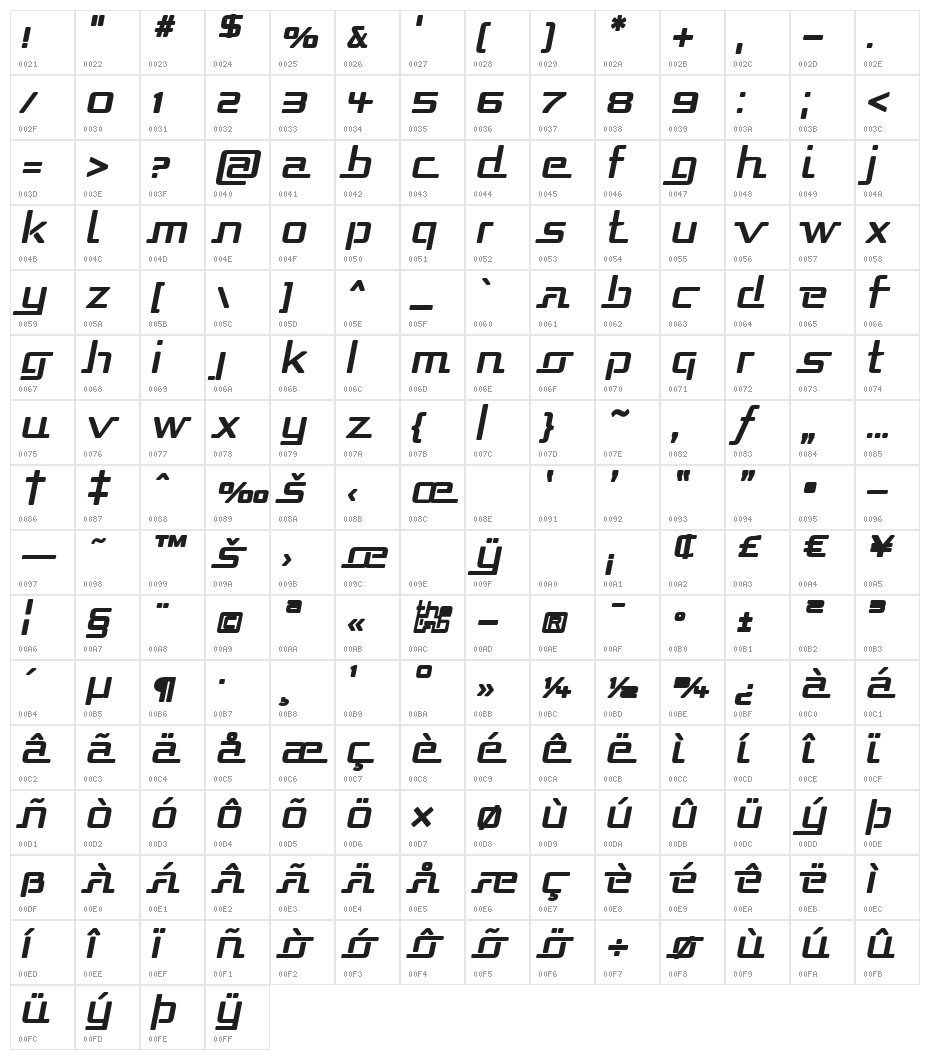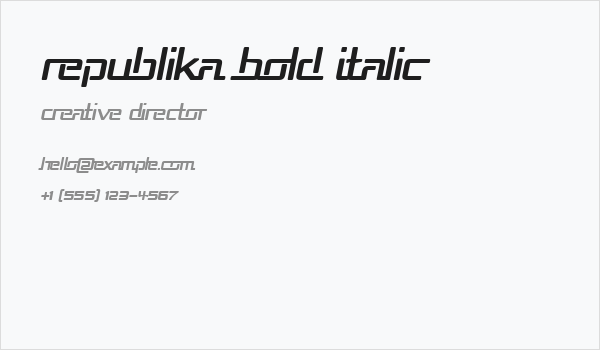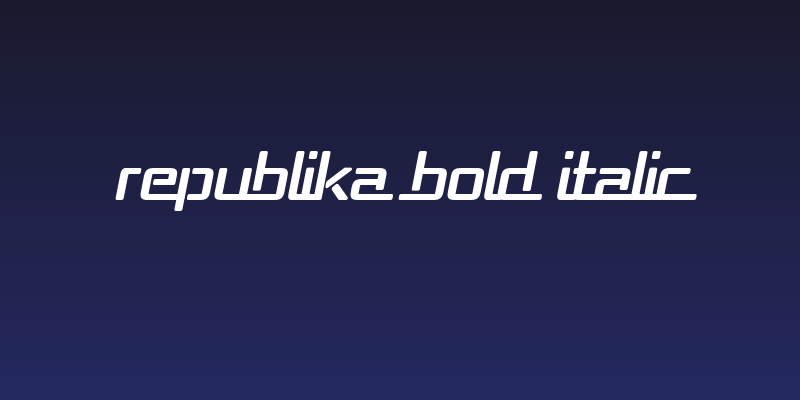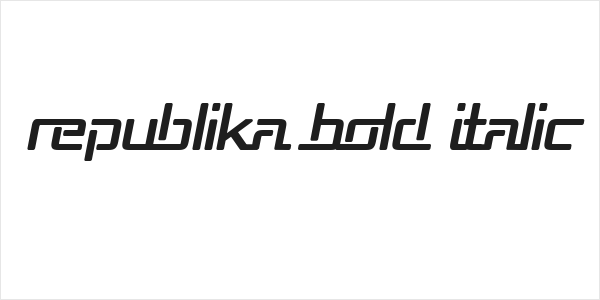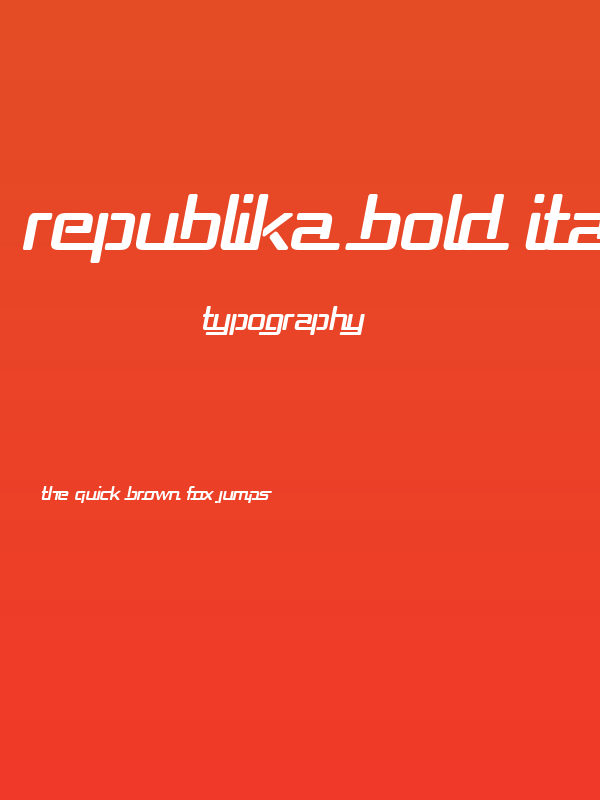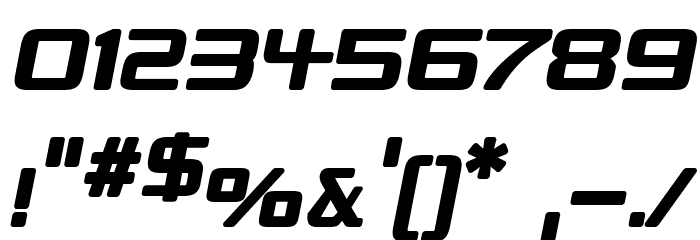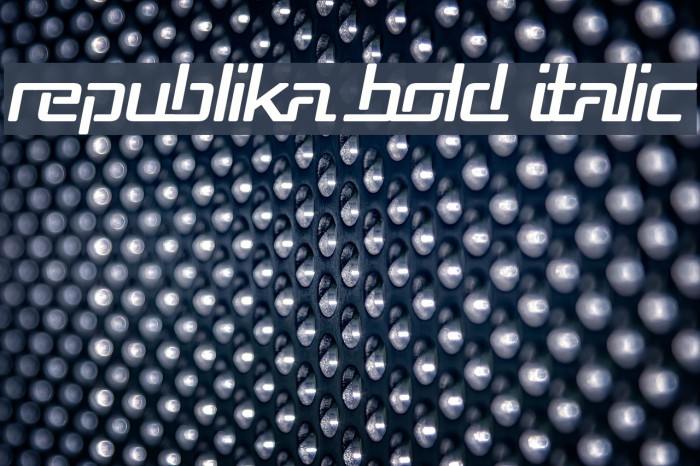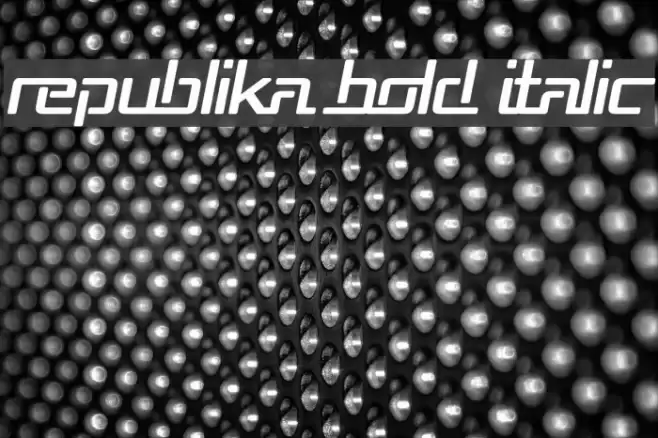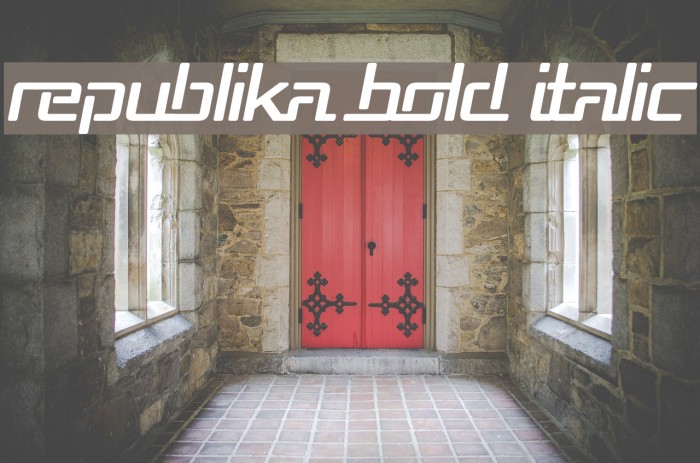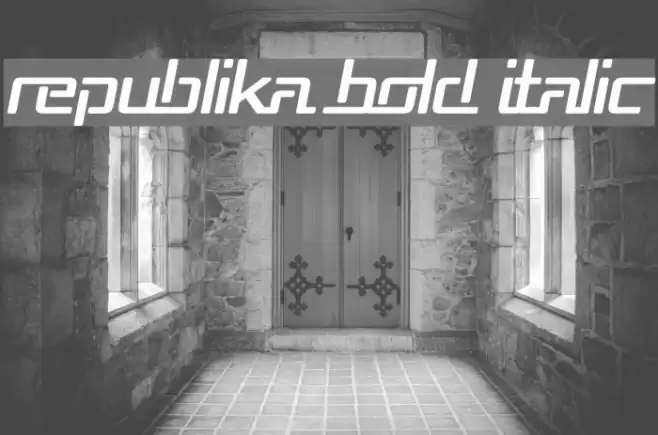
Republika Bold Italic Font
Republika Bold Italic Description
This font features a bold and italicized style with a modern and sleek appearance. The characters are slightly slanted, giving a dynamic and forward-moving impression. The strokes are thick and consistent, providing a strong visual impact. The design is geometric with rounded edges, making it suitable for contemporary and tech-oriented projects. The numbers and special characters maintain the same boldness and style, ensuring uniformity across different uses. The font's overall look is clean and professional, ideal for making a statement in digital and print media.
| Use Case | Headlines, Logos, Digital Interfaces |
| Proposed Projects | Ideal for tech branding, digital interfaces, modern advertising, and futuristic designs. |